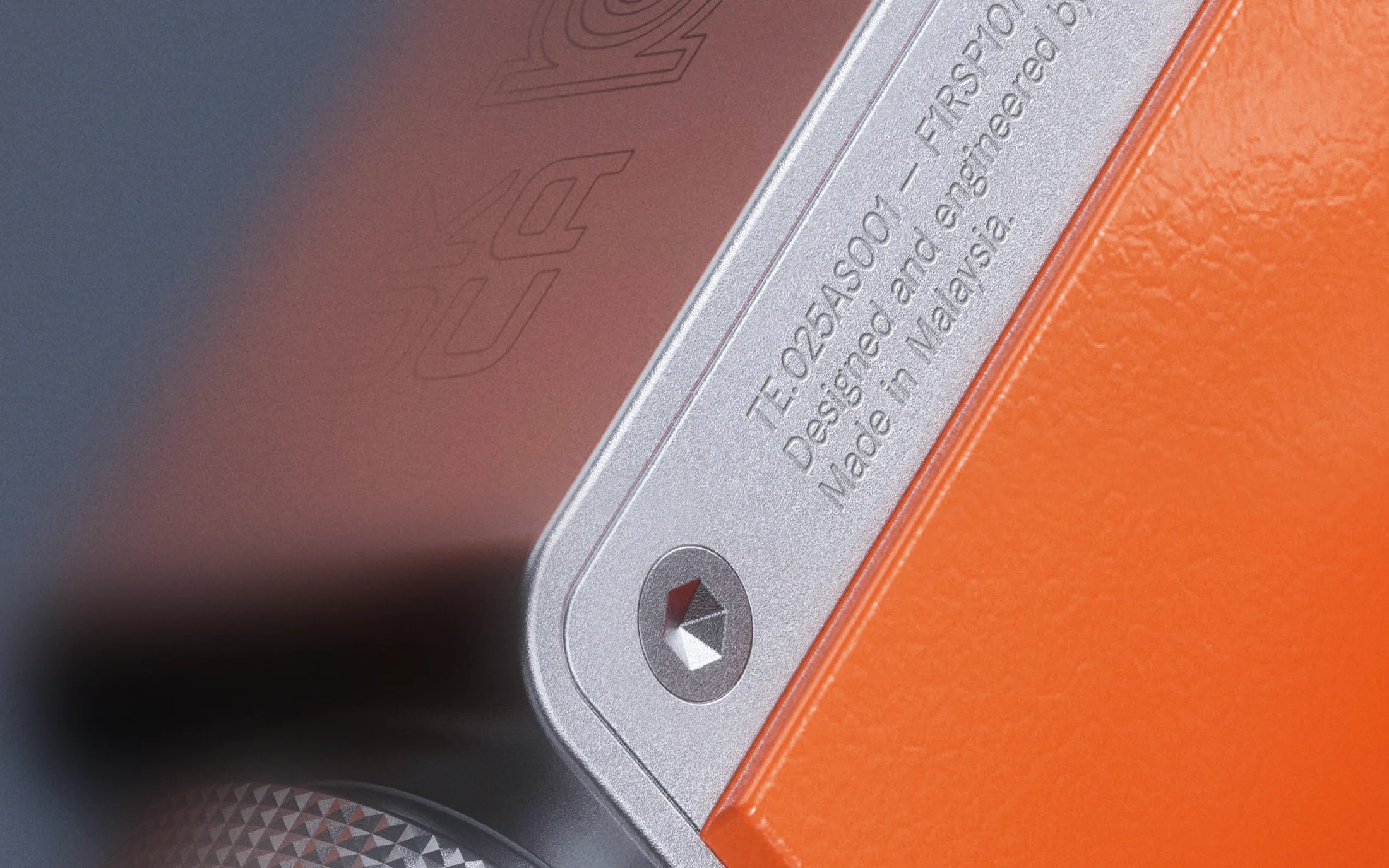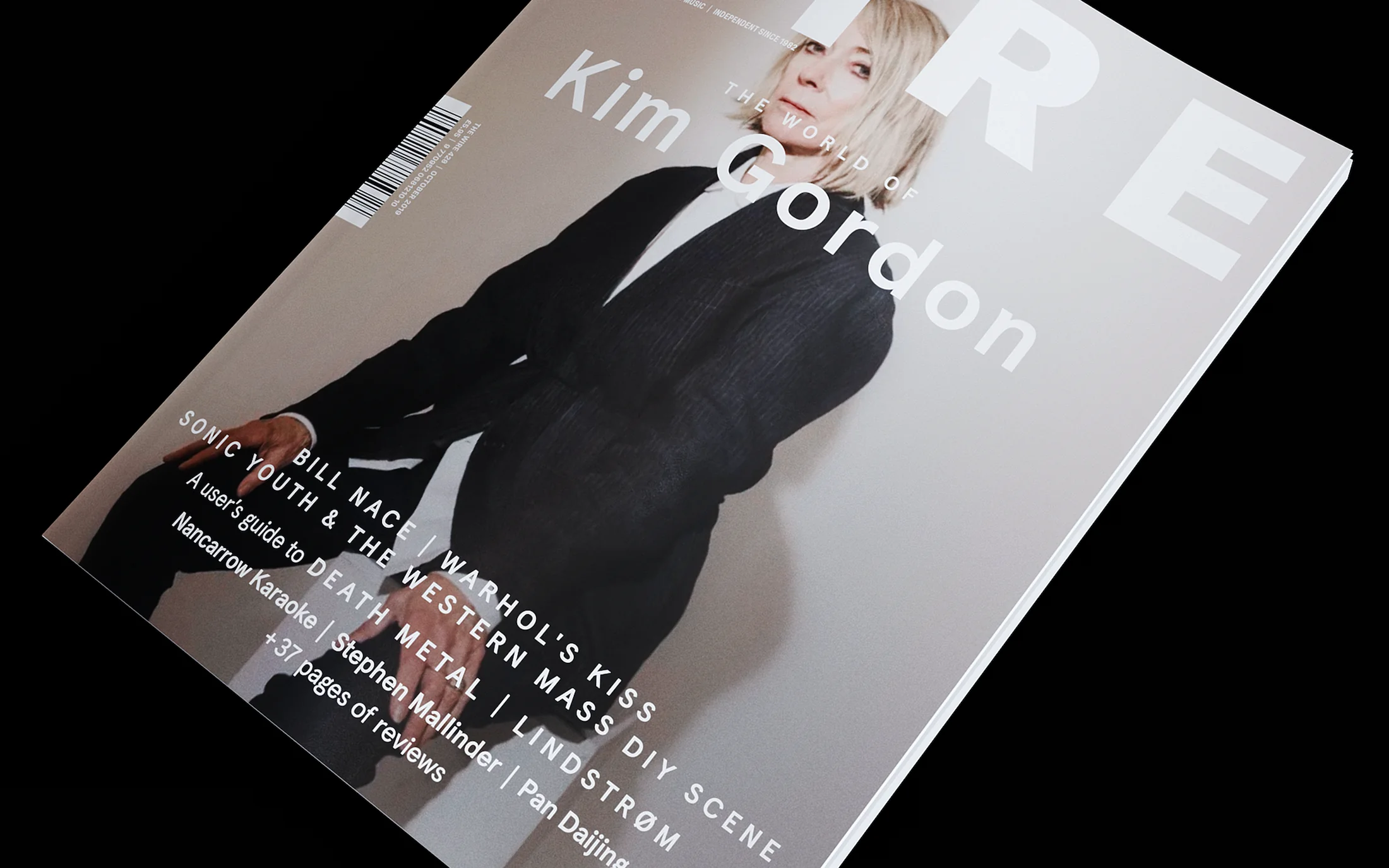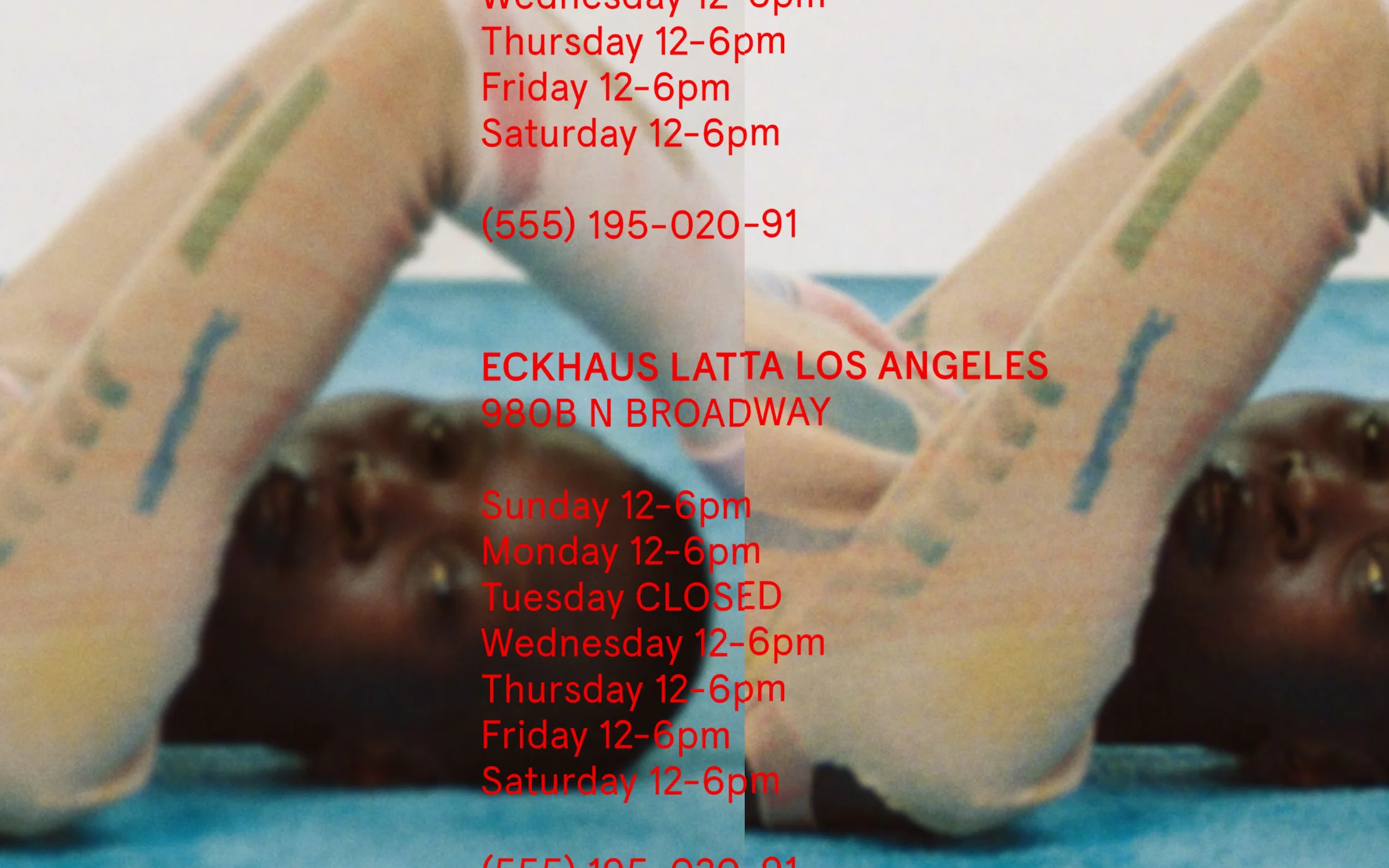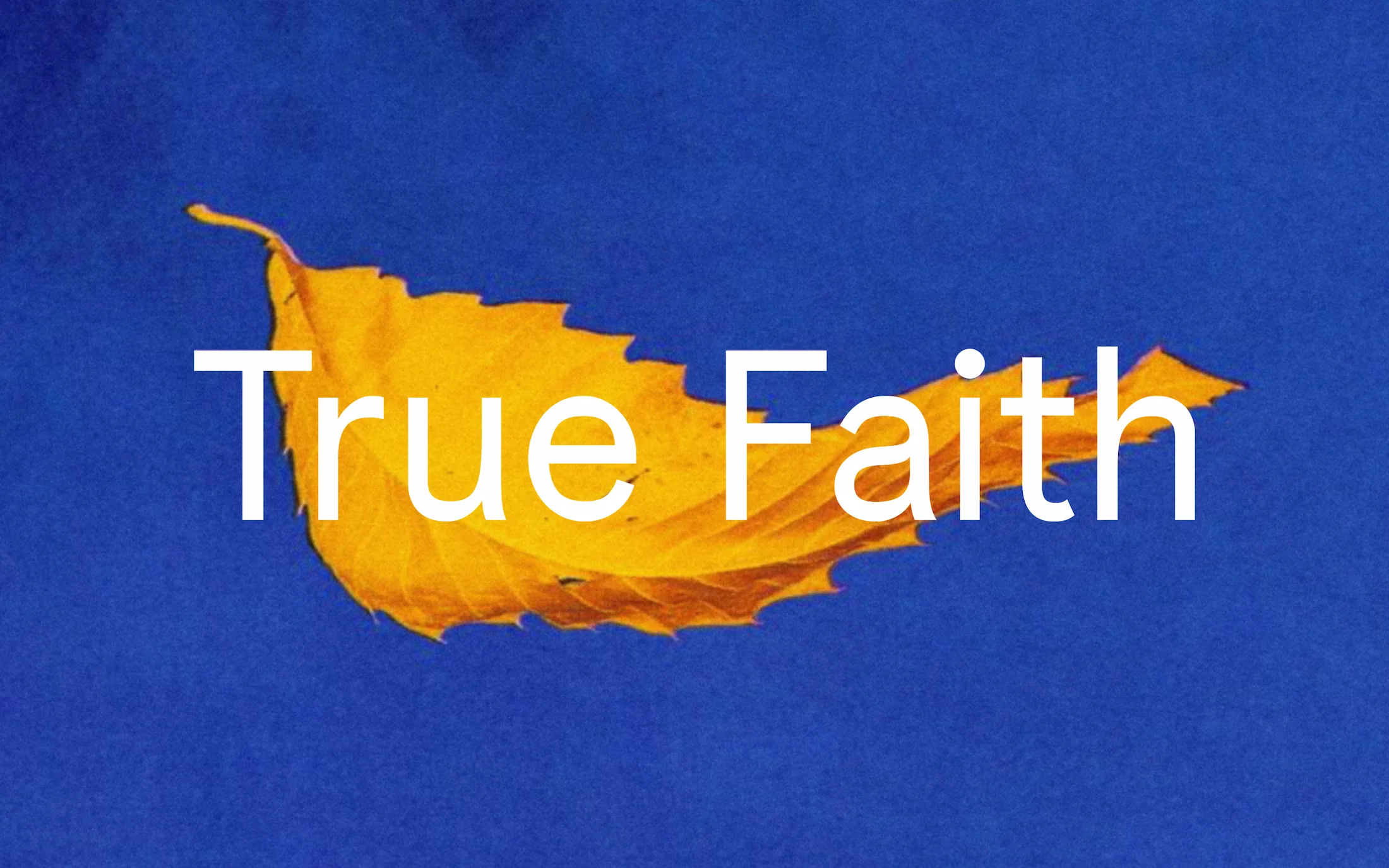
4 Styles + Variable
The tiny terror, the little trouble girl. Nina Sans is a workhorse family designed to have a big personality at any scale. Maximizing the playfulness and lightness that humanist typefaces like Franklin Gothic can bring (almost accidentally), while still achieving a technical and rhythmic quality to look as precise as it needs to.
Bite! is a compact version of Nina Sans Regular.